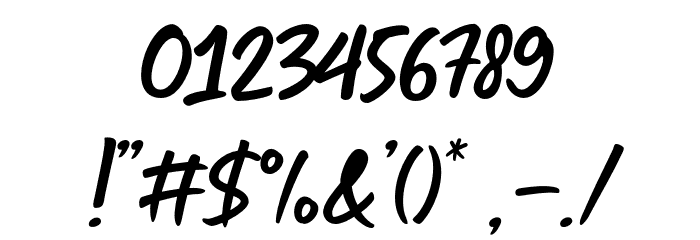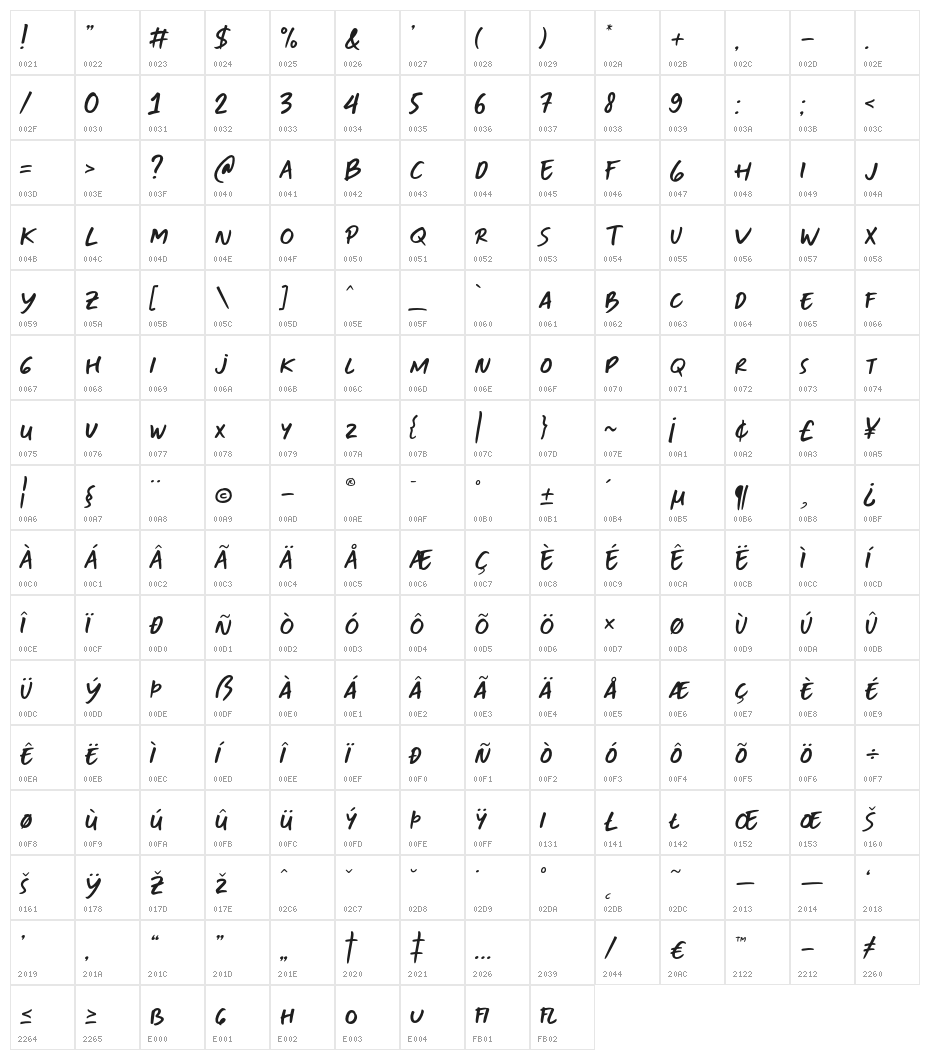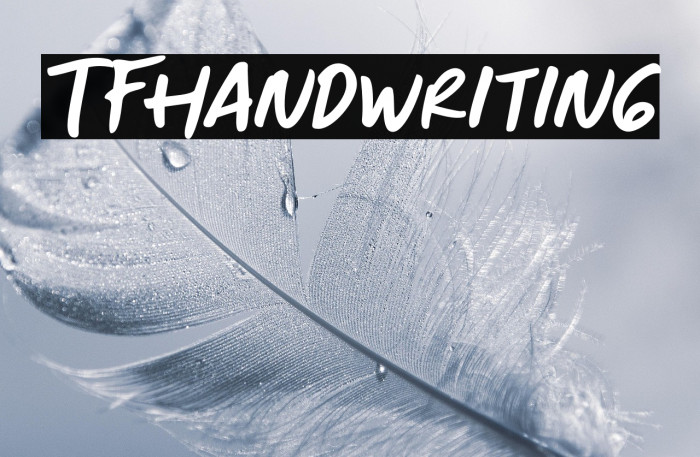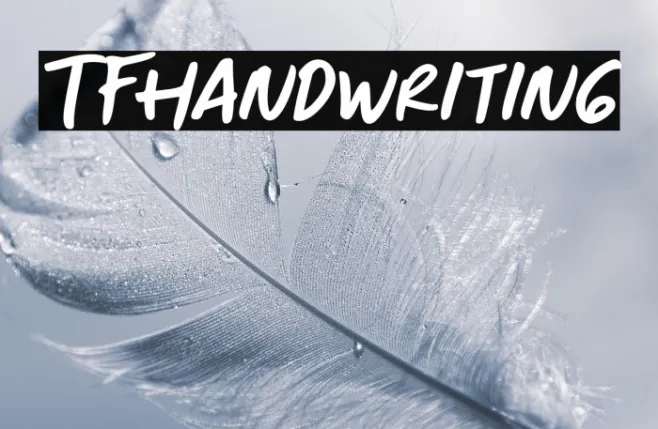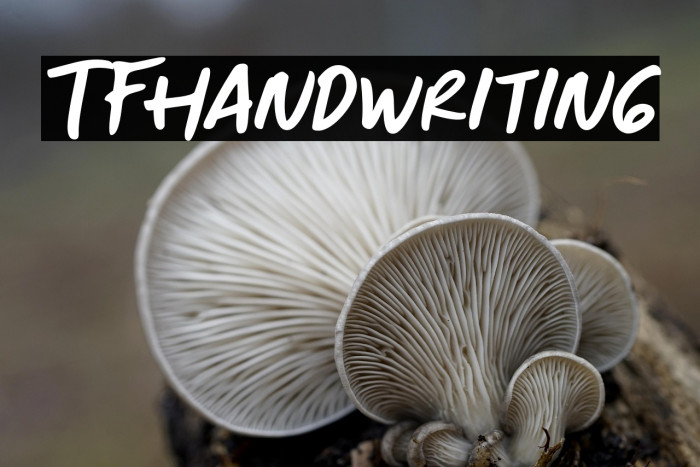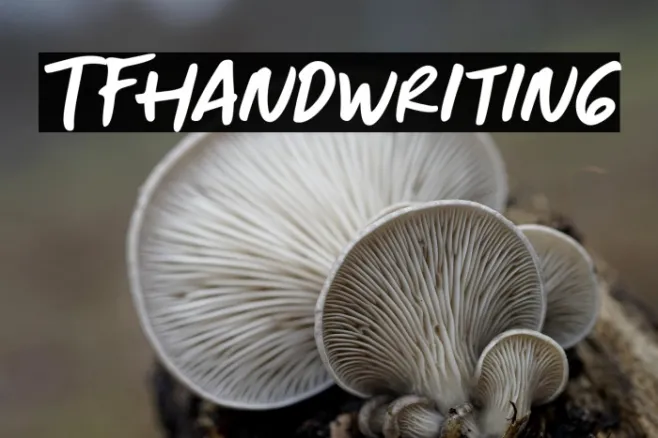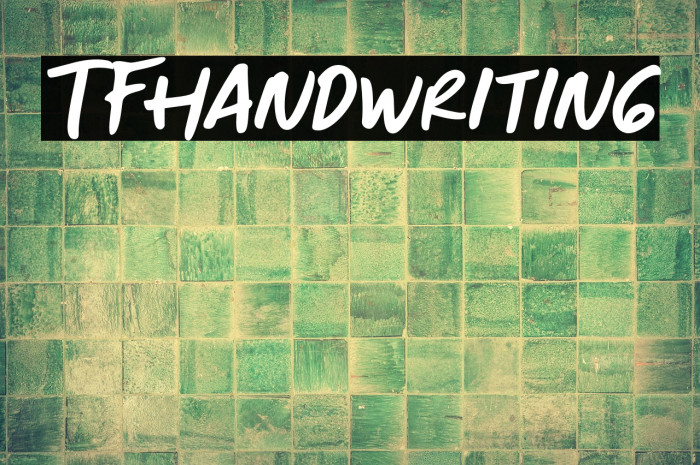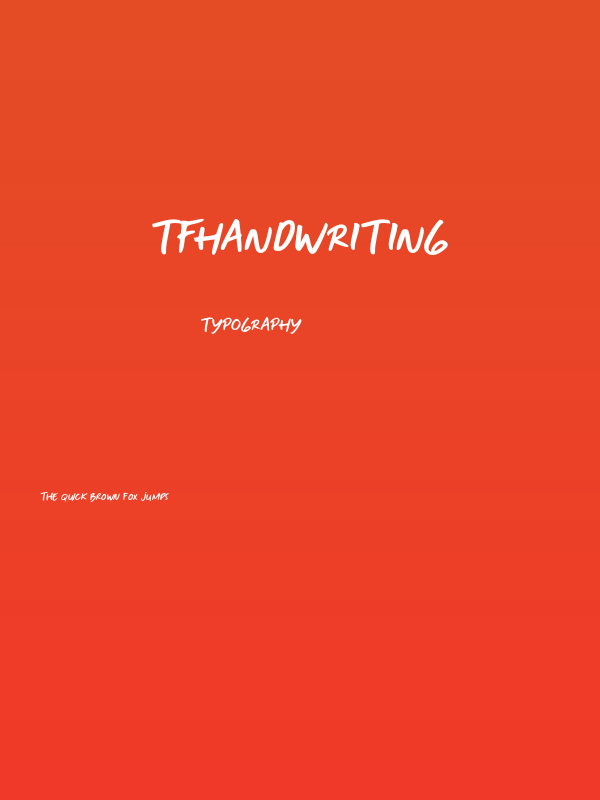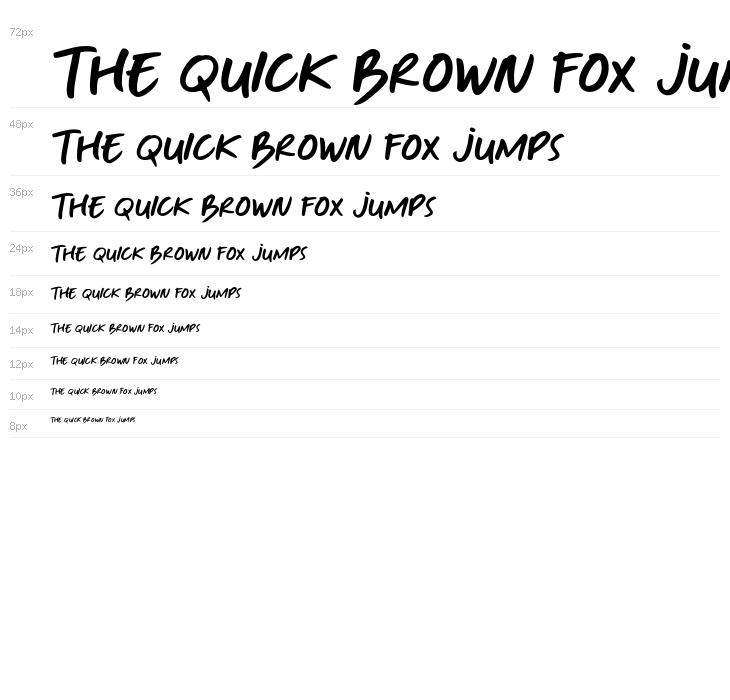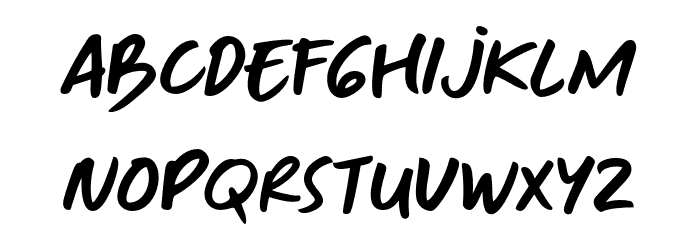
TFHandwriting Font
TFHandwriting Description
This font exudes a casual and friendly vibe, reminiscent of natural handwriting. It features smooth, flowing strokes with a slight slant, giving it an informal and approachable appearance. The characters are well-rounded and slightly bold, which enhances readability while maintaining a playful aesthetic. The uppercase and lowercase letters are distinct yet harmonize well together, making it versatile for various design needs. The numerals and special characters are consistent with the overall style, ensuring a cohesive look across different text elements.
| Proposed Projects | Ideal for personal branding, invitations, greeting cards, and social media graphics. |